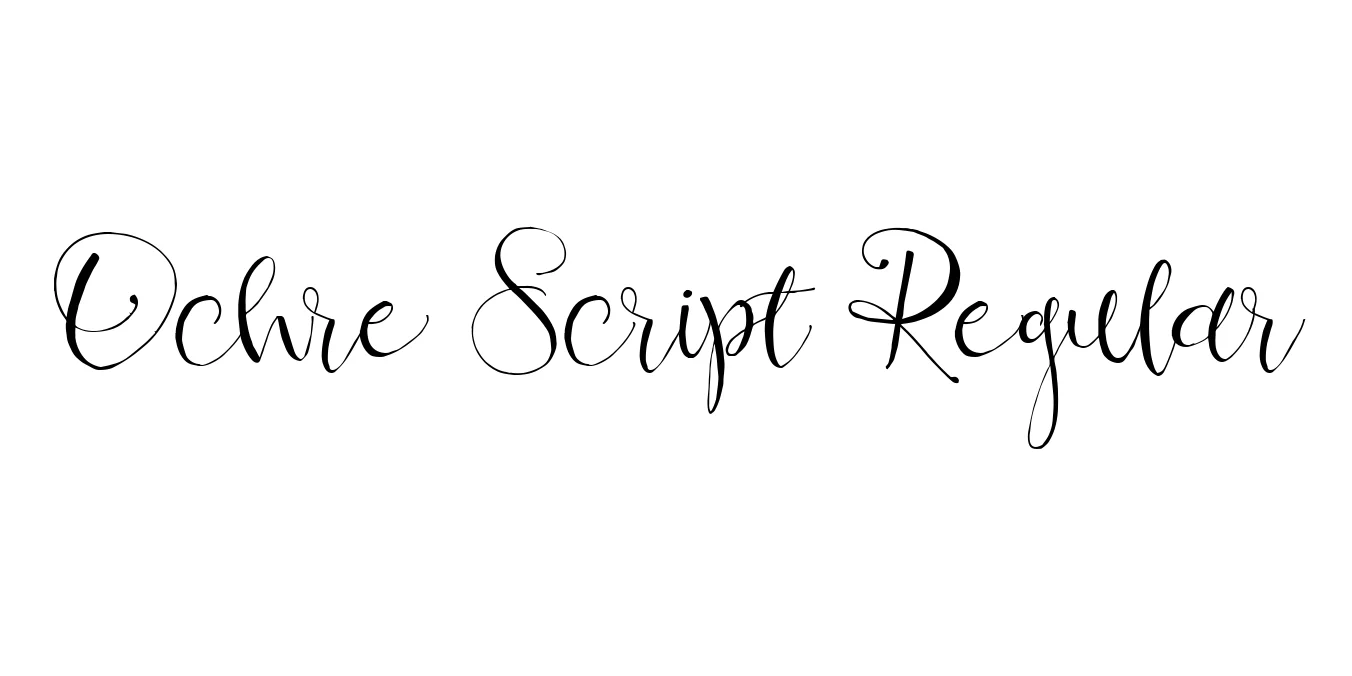
Ochre Script Regular
Designed by Agni Ardi Reinusa (Artisans)
Ochre Script Regular is a sophisticated calligraphy typeface that beautifully bridges the gap between traditional penmanship and modern digital design. Characterized by its fluid, rhythmic strokes and elegant swashes, this font captures the organic feel of hand-lettered ink on textured paper. It was crafted to provide designers with a tool that feels both personal and high-end, making it a standout choice for projects that require a touch of human warmth and artistic flair.
The technical structure of Ochre Script ensures that individual characters connect seamlessly, creating a natural flow that mimics genuine handwriting. This font has gained significant popularity in the wedding and event industry due to its romantic aesthetic and legibility. Whether used for large headlines or decorative accents, Ochre Script Regular maintains its integrity and charm across various print and digital mediums.
Ochre Script Regular Best Uses
Perfect for elegant invitations, place cards, and save-the-date notices.
Excellent for luxury boutique logos and signature-style brand marks.
Ideal for creating aesthetic quotes, overlays, and Instagram story graphics.
Well-suited for magazine headers and stylish pull-quotes.